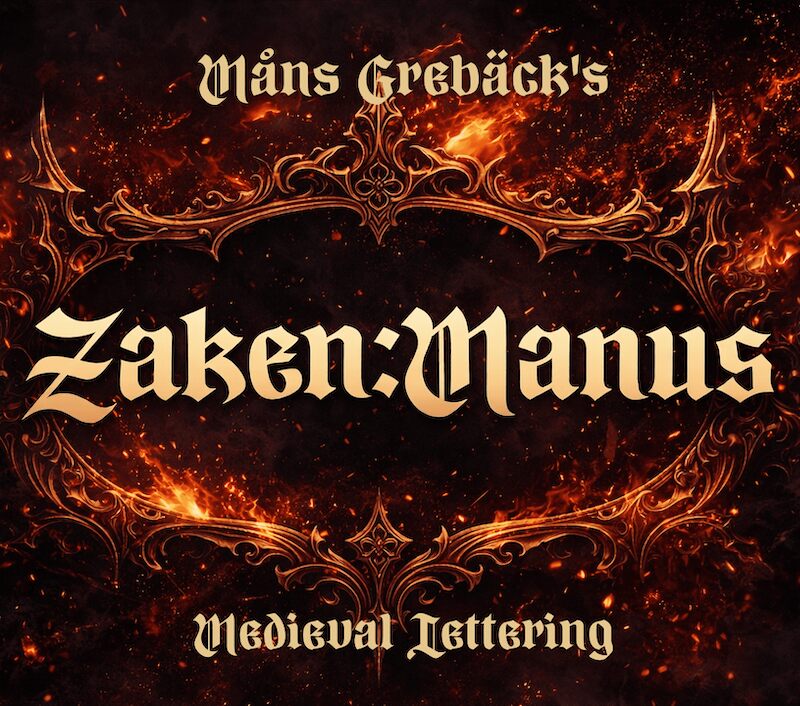
Zaken Manus font
Zaken Manus
Zaken Manus is a medieval blackletter font that boasts a commanding and deliberate presence. The letterforms are steeped in manuscript tradition, featuring sharp angles and a steady rhythm that imparts a sense of authority to the text.
The design strikes a balance between ornamentation and clarity, with shapes that feel carved and intentional. This results in a dense texture that remains clear and organized, avoiding chaos while maintaining visual impact.